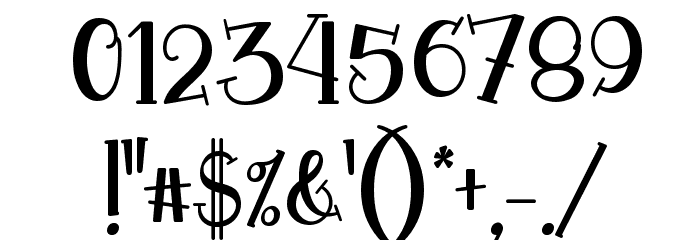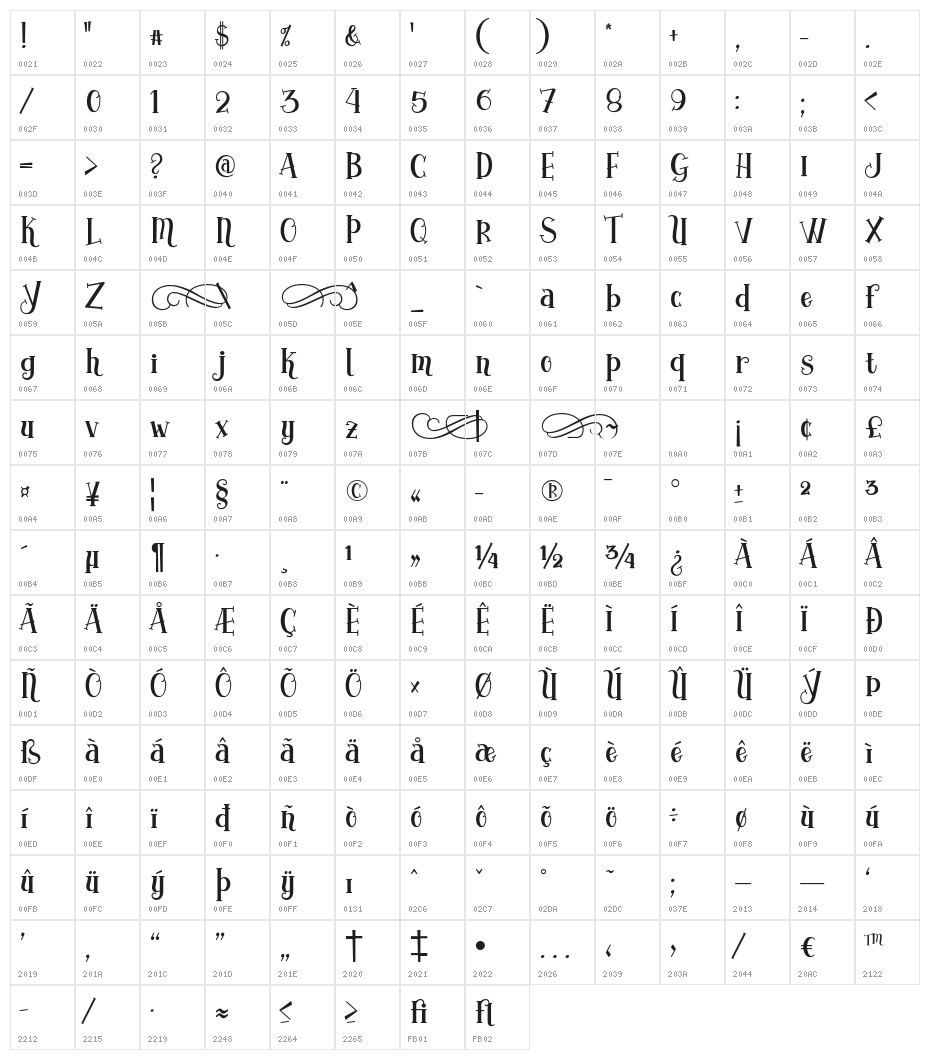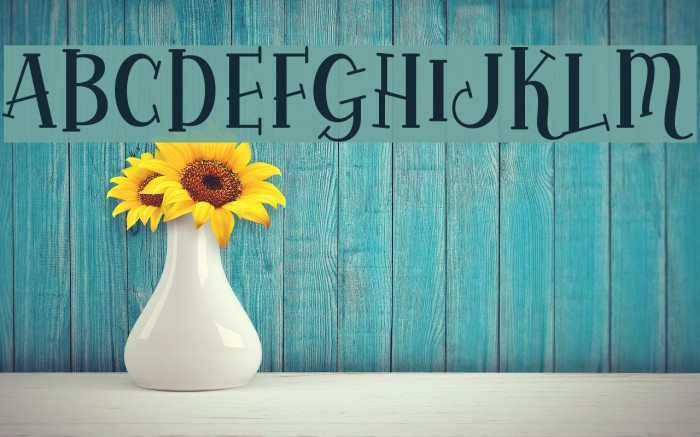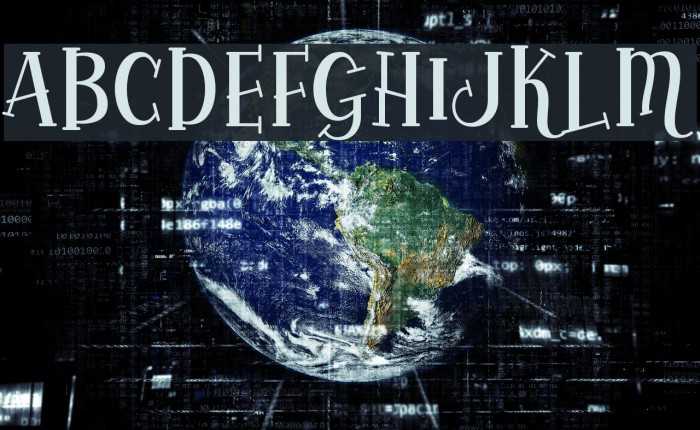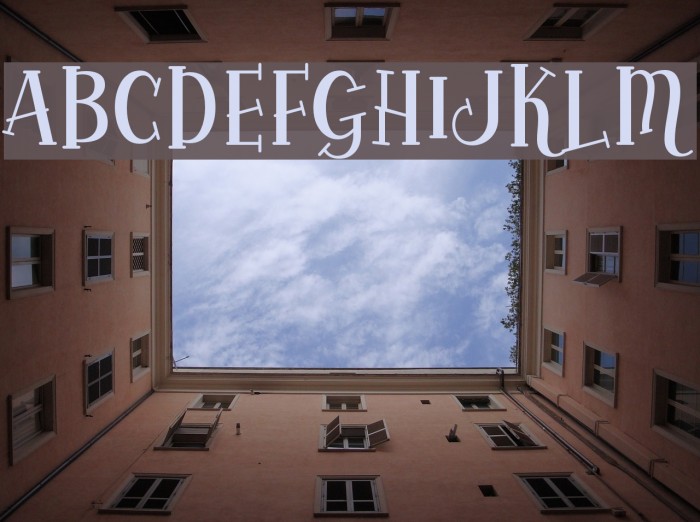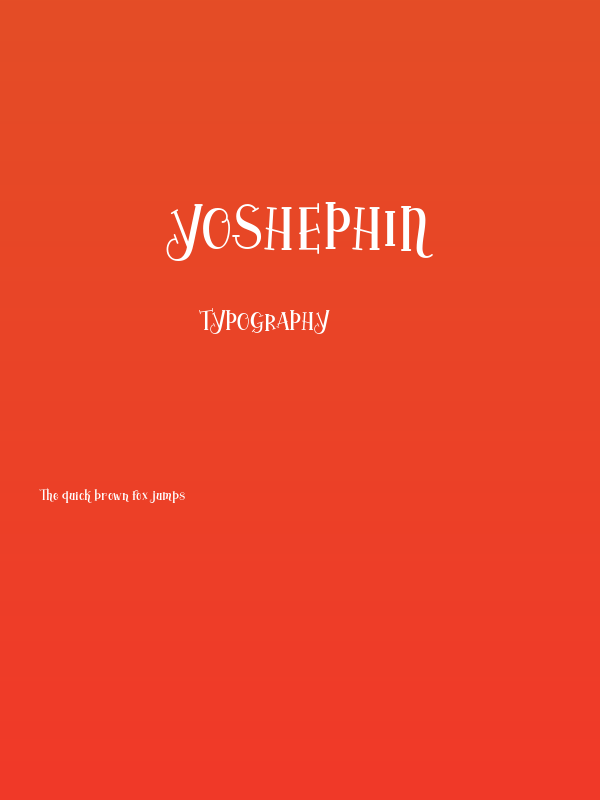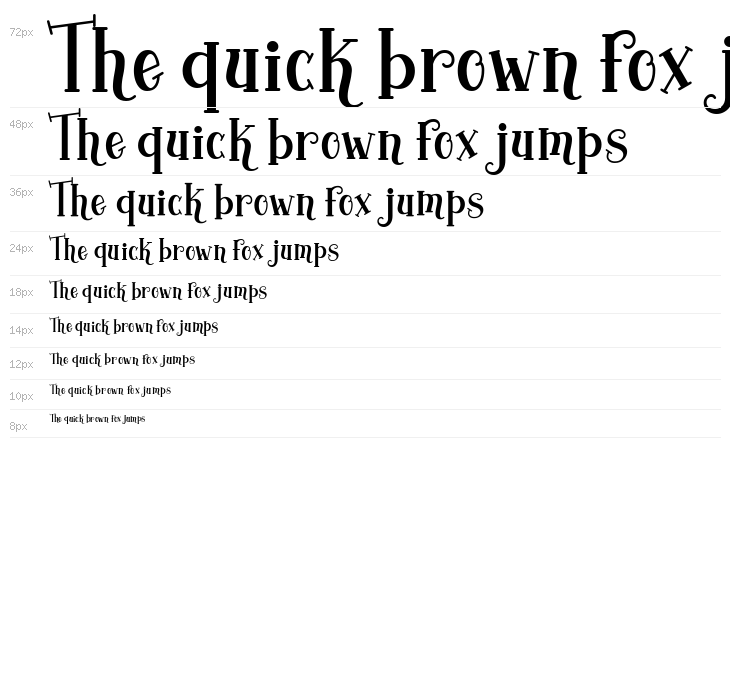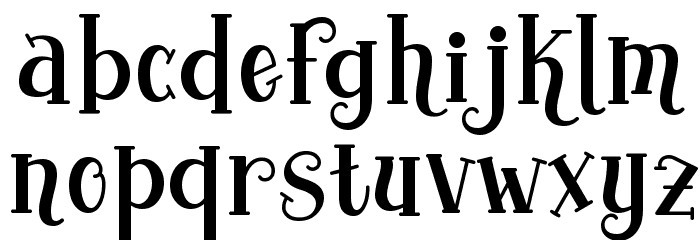
Yoshephin Font
Yoshephin Description
This font features a whimsical and playful design with a unique blend of curves and sharp edges. The uppercase letters are tall and slightly narrow, with distinctive swirls and hooks that add a touch of elegance and creativity. The lowercase letters maintain a consistent style, offering a harmonious flow with their rounded forms and subtle embellishments. The numerals are bold and clear, ensuring readability while maintaining the font's artistic flair. Special characters are thoughtfully designed to complement the overall aesthetic, making this font suitable for a variety of creative applications.
| Proposed Projects | Ideal for creative projects such as invitations, greeting cards, posters, and branding materials that require a touch of elegance and playfulness. |